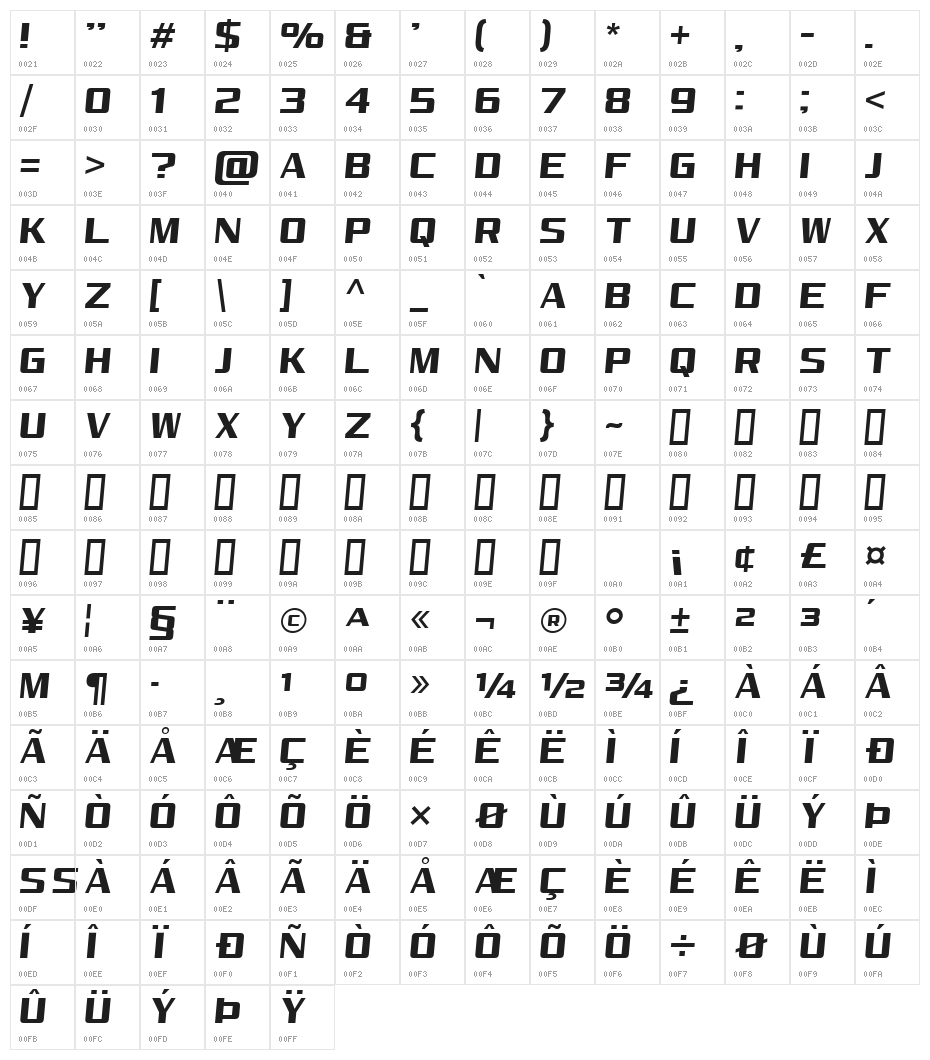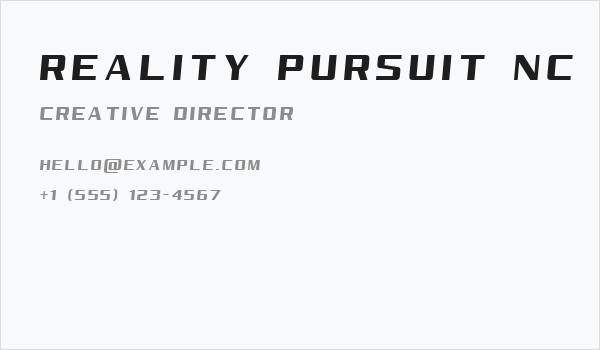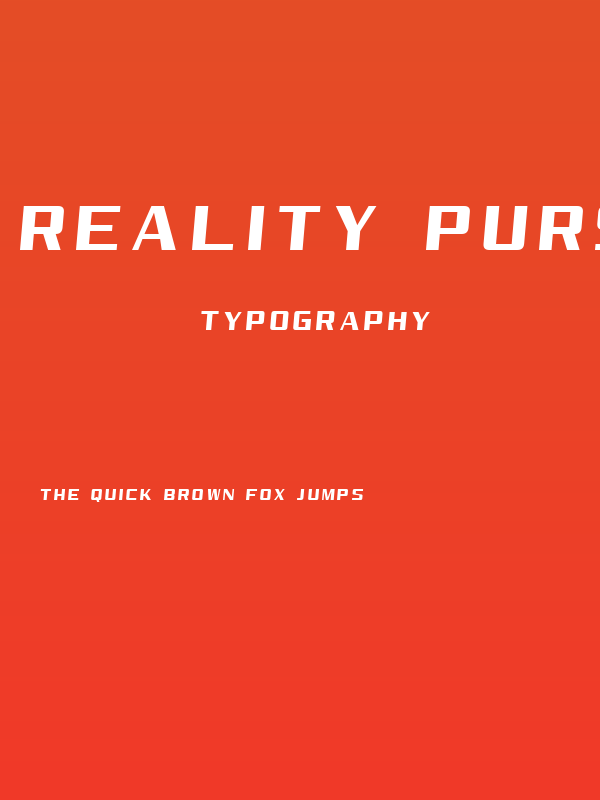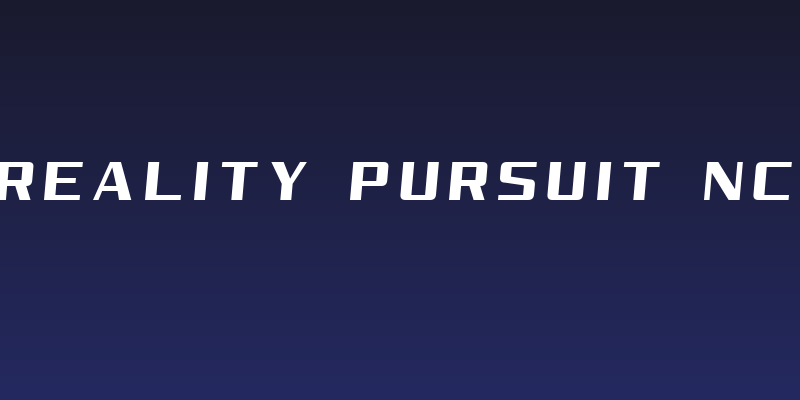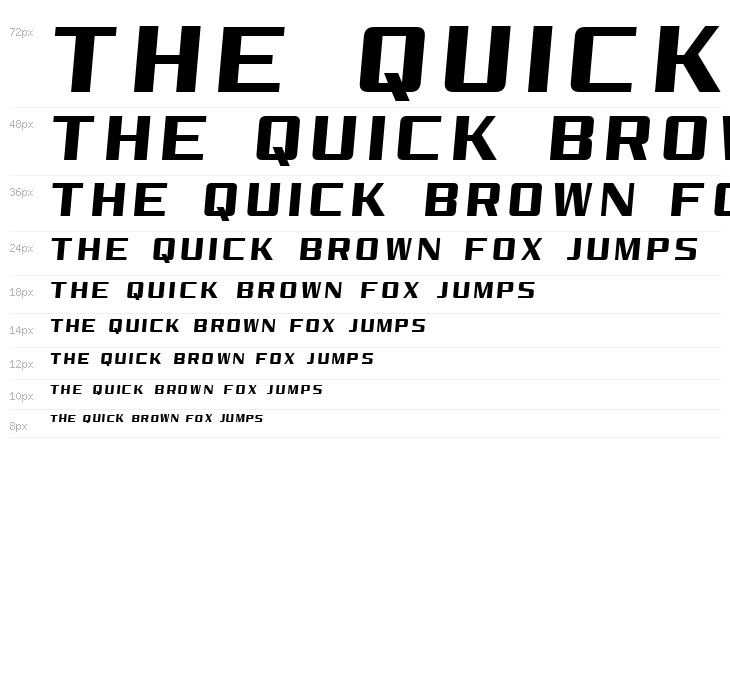
Reality Pursuit NC Font
Reality Pursuit NC Description
This font features a modern and dynamic design with a slight slant, giving it a sense of motion and energy. The characters are bold and angular, with a geometric structure that conveys strength and precision. The uppercase and lowercase letters maintain a consistent style, with sharp edges and a uniform stroke width. The numerals and special characters are designed to match the overall aesthetic, ensuring a cohesive look across all text. This font is ideal for projects that require a contemporary and impactful appearance.
| Proposed Projects | Ideal for sports branding, technology logos, and dynamic headlines. |